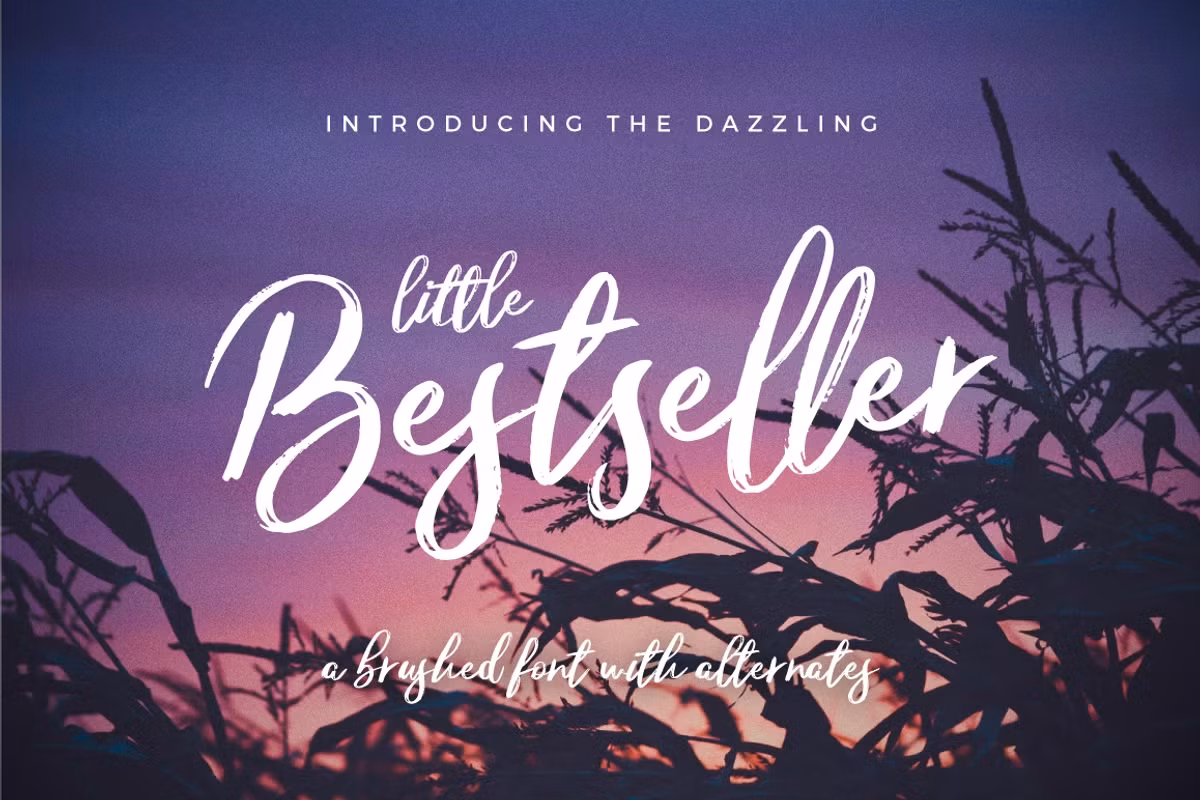
Little Bestseller Script Font Free Download is a charming and elegant handwritten typeface that blends casual beauty with a refined, bestseller-worthy look. With flowing curves, smooth connections, and a modern script feel, it’s perfect for book covers, branding, wedding invitations, social media posts, and feminine product packaging.
This font’s graceful, natural flow adds warmth and personality to any design, while maintaining readability and style. Whether you're crafting a logo, a heartfelt quote, or a romantic card, Little Bestseller Script Font Free Download brings a handwritten touch that feels both intimate and polished.
Add bestseller charm to your next creative work with Little Bestseller Script Font Free Download, and let your words dance beautifully across the page. A must-have for designers who love handwriting fonts with heart and flair.